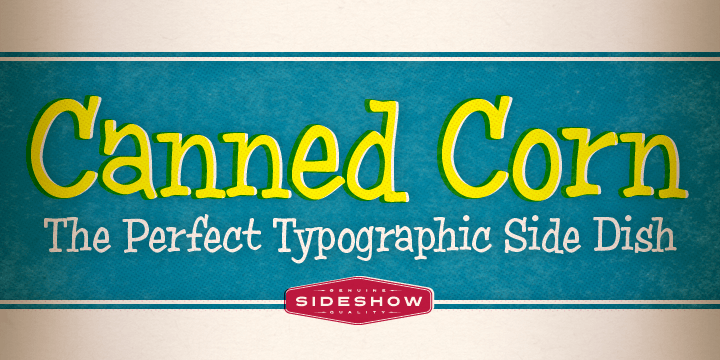
Canned Corn
Aw shucks... Getting your veggies has never been this much fun thanks to Squid and Sideshow. When you want great taste, fun and good nutrition, think Canned Corn! It's an earful for your eyes!
Canned Corn comes complete with a whole mess'a OpenType alternate characters and automatic ligatures fer good measure!